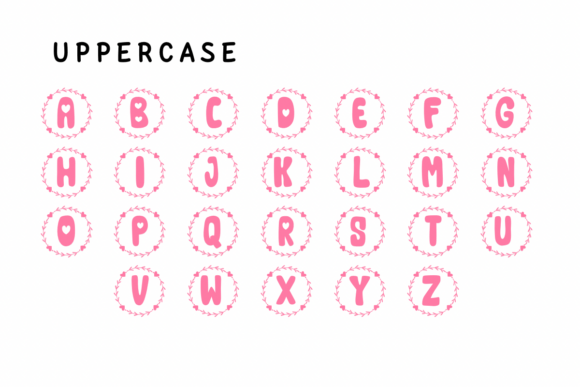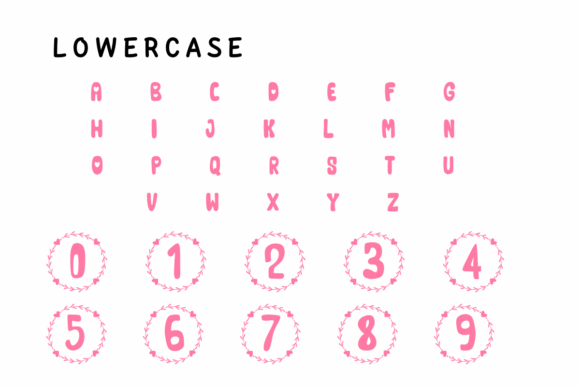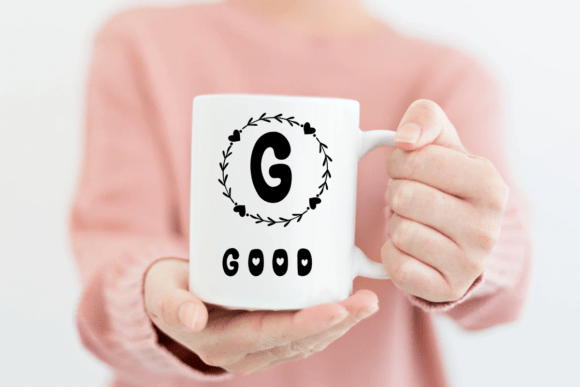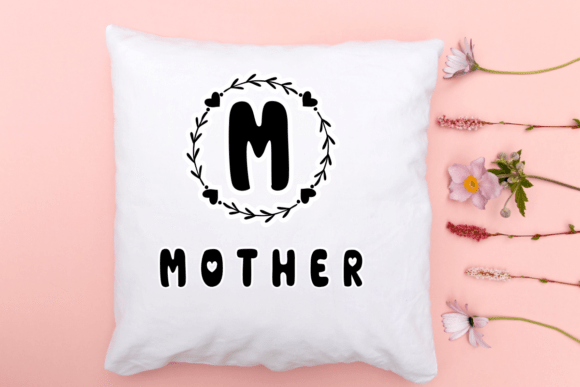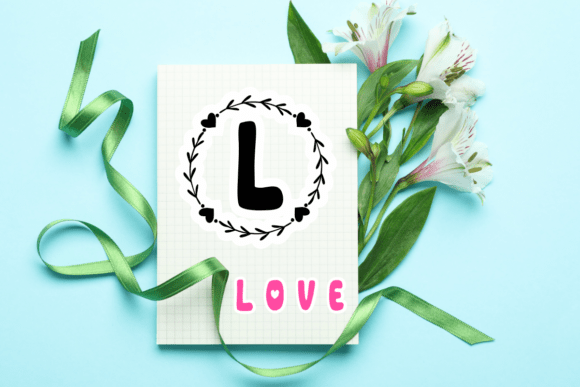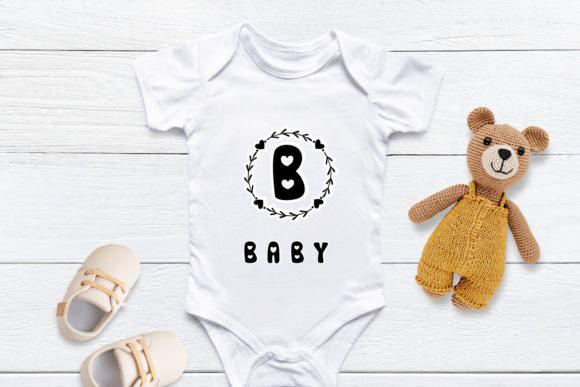
Introduction to Mom Monogram Font
Celebrate motherhood with the sweet and sentimental Mom Monogram Font – a lovingly crafted decorative typeface perfect for all things mom-inspired.
With bold, rounded letters adorned in delicate heart and leaf wreaths, this font radiates warmth and affection Ideal for baby shower invitations, Mother’s Day projects, personalized gifts, and nursery decor, this font adds a heartfelt touch to any design.
Key Features of Mom Monogram Font
Why Choose Mom Monogram Font?
Mom Monogram Font offers exceptional quality and versatility, making it a valuable addition to your design toolkit. Whether you’re creating for personal projects or commercial use, Mom Monogram Font delivers professional results.